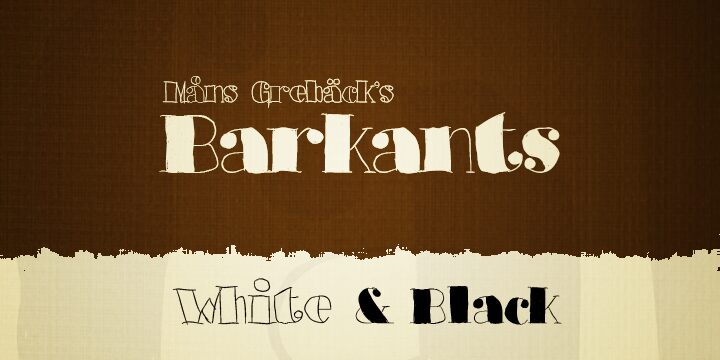
Barkants Black by Måns Grebäck is a free distorted display font with towering letters, abrupt changes in stroke width, and a deliberately unstable silhouette. Fine hairlines collide with dense, ink-soaked sections, and the uneven edges look roughly cut or overprinted.
Illustrations using torn paper, black ink, or photocopied textures can absorb this lettering as part of the image rather than treating it as a clean caption. Its unruly shapes suit experimental music posters, horror publishing, fashion graphics, and theatrical event branding, with strong ties to decadent, unsettling, and raw underground themes.